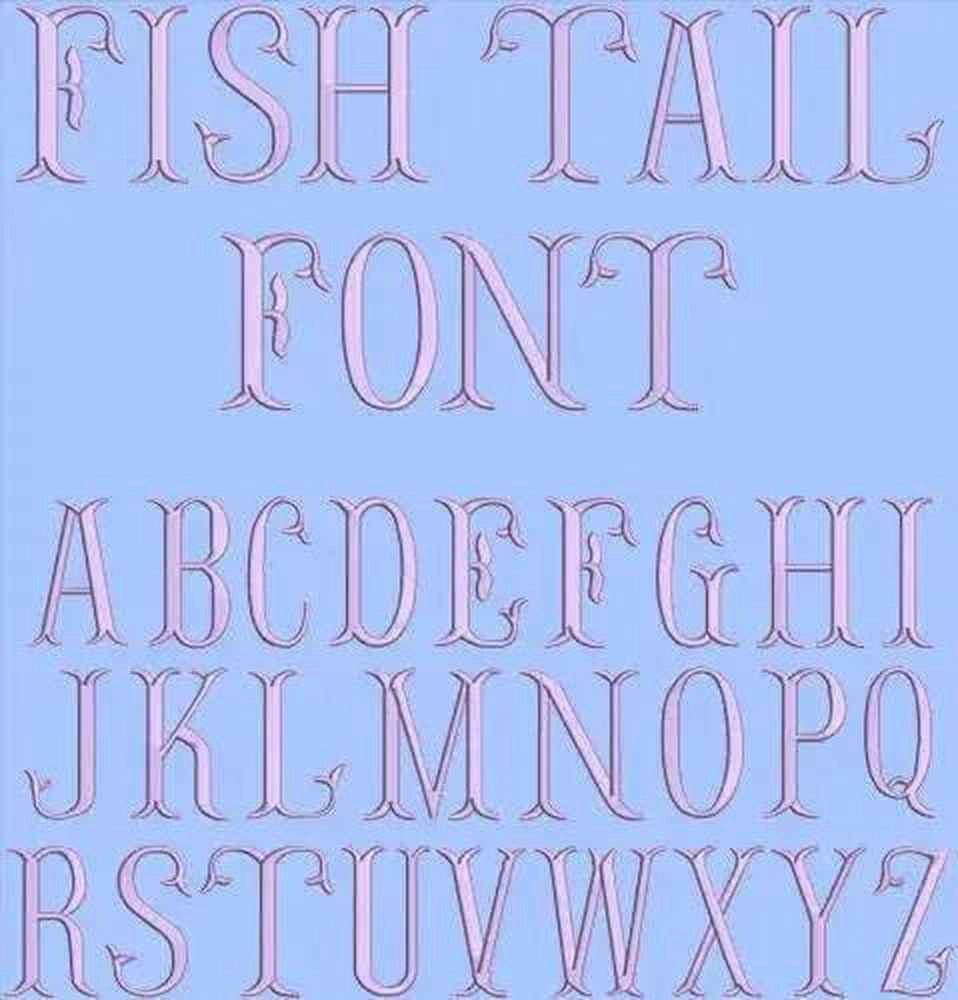
Transform your projects with the Fish Taill Embroidery Alphabet Font Set, designed for inspiration and elegance!
Introducing the Fish Taill Embroidery Alphabet Font Set, a stunning collection of elegant and high-quality embroidery designs that will elevate your creative endeavors. Perfect for personalized gifts, home décor, and more, this set is designed to bring sophistication to every piece. Whether you’re a novice or an expert, these intricately designed letters will enhance your projects and allow your creativity to shine!
Why You'll Love This Design
The Fish Taill Embroidery Alphabet Font Set features a unique fish tail design that adds a touch of whimsy and elegance to your embroidery projects. Each letter is meticulously crafted to ensure clarity and beauty, making it an essential addition to your embroidery library. With multiple sizes available, you can choose the perfect font for any occasion.
Creative Applications
This versatile font set is ideal for a variety of applications. Create personalized items such as monogrammed towels, custom apparel, or unique home décor that reflects your style. The elegant design makes it suitable for formal events, weddings, or everyday use. Turn heads with your creativity and make every project special!
- Perfect for personalized gifts and home decorations
Transform your projects with the Fish Taill Embroidery Alphabet Font Set, designed for inspiration and elegance!
Introducing the Fish Taill Embroidery Alphabet Font Set, a stunning collection of elegant and high-quality embroidery designs that will elevate your creative endeavors. Perfect for personalized gifts, home décor, and more, this set is designed to bring sophistication to every piece. Whether you’re a novice or an expert, these intricately designed letters will enhance your projects and allow your creativity to shine!
Why You'll Love This Design
The Fish Taill Embroidery Alphabet Font Set features a unique fish tail design that adds a touch of whimsy and elegance to your embroidery projects. Each letter is meticulously crafted to ensure clarity and beauty, making it an essential addition to your embroidery library. With multiple sizes available, you can choose the perfect font for any occasion.
Creative Applications
This versatile font set is ideal for a variety of applications. Create personalized items such as monogrammed towels, custom apparel, or unique home décor that reflects your style. The elegant design makes it suitable for formal events, weddings, or everyday use. Turn heads with your creativity and make every project special!
- Perfect for personalized gifts and home decorations